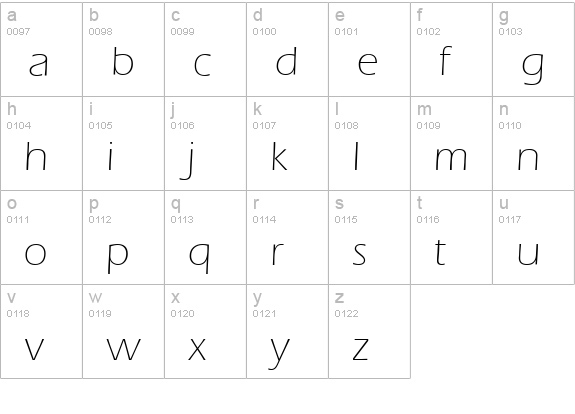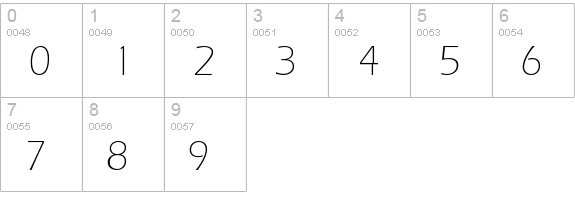
E820-Sans-Light-Regular is a refined, elegant variant in the E820 typeface family \xE2\x80\x94 well suited to elegant body text, refined sub-headings, and luxury branding.
E820-Sans-Light-Regular is a modern and elegant sans-serif font that is perfect for a wide range of design projects. With its clean lines and minimalist aesthetic, this font exudes professionalism and sophistication. Whether you're creating a sleek website, stylish branding materials, or contemporary print designs, E820-Sans-Light-Regular is sure to make a statement. The best part is that this font is completely free to download at FontsMarket.com. Take advantage of this fantastic offer and enhance your design projects with the timeless appeal of E820-Sans-Light-Regular. Download now and elevate your creations with this versatile and eye-catching font.